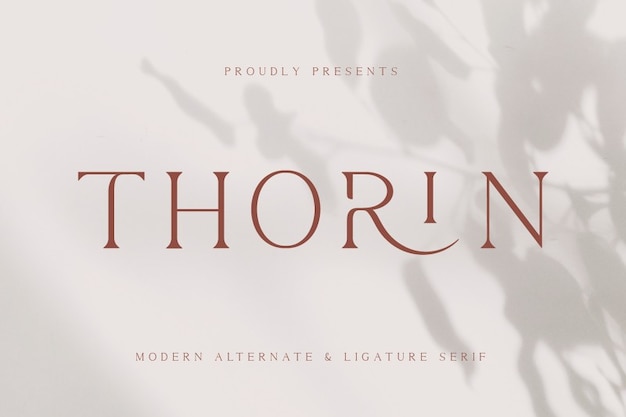
THORIN
THORIN Font
"THORIN" is a modern, elegant font exuding luxury and sophistication. Its sleek lines and refined details make it perfect for high-end branding, fashion labels, and upscale design projects. "THORIN" combines contemporary style with timeless elegance, offering a touch of grandeur and class to any visual presentation.